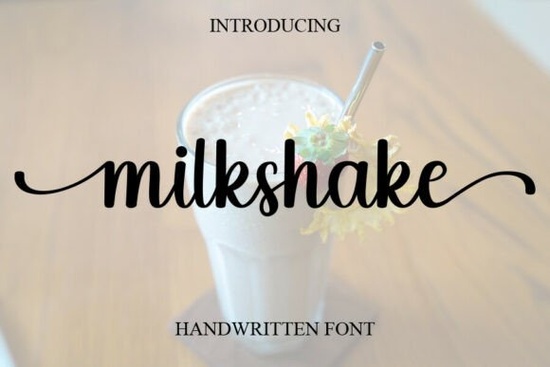
If you're looking for a font that brings a touch of whimsy and charm to your designs, the Milkshake Font is a great choice. This tall, playful handwritten font has a casual, heartfelt feel that makes it perfect for a variety of creative projects.
Why Choose Milkshake Font?
Milkshake Font stands out with its slim, elongated characters that add a unique and personal touch to your designs. Whether you're working on Father’s Day cards, t-shirts, or posters, this font can bring a sense of warmth and personality to your work. Its clean handwritten style with a hint of charm makes it ideal for personal and emotional projects.
Perfect for Greeting Cards and More
One of the standout features of Milkshake Font is its versatility. It's not just a font; it's a way to express emotion and creativity. For example, if you're designing a greeting card, the playful and heartfelt nature of the font can make your message more meaningful. The same goes for t-shirts and posters, where the font can add a personal and engaging touch.
How to Use Milkshake Font in Your Designs
Incorporating Milkshake Font into your designs is straightforward. Here are a few tips to help you get started:
- Choose the Right Background: A simple, clean background can make the slim, elongated characters of Milkshake Font stand out even more. Consider using light, neutral colors or subtle patterns.
- Combine with Other Fonts: To create a balanced design, you might want to pair Milkshake Font with a more traditional or sans-serif font. This can help highlight the unique qualities of Milkshake while maintaining readability.
- Add Decorative Elements: Enhance your design by adding small decorative elements like borders, icons, or illustrations. These can complement the playful and heartfelt feel of the font.
Comparing Milkshake Font with Other Script Fonts
While Milkshake Font is a fantastic choice, it's always good to compare it with other options. Here are a few other script fonts you might consider:
- Homestead Font: This font offers a rustic, hand-drawn feel, making it perfect for vintage and farmhouse-style designs.
- Strawberry Chesscake Font: With its bouncy and cheerful style, this font is ideal for creating fun and lively designs, especially for children's projects.
- Rainy Winter Single Line Font: This elegant and minimalistic font is great for more refined and sophisticated designs, such as wedding invitations or formal documents.
- Better Together Font: As the name suggests, this font is all about harmony and connection. It works well for romantic and heartfelt projects.
Tips for Using Handwritten Fonts Effectively
Handwritten fonts like Milkshake can add a lot of character to your designs, but they also require some care to use effectively. Here are a few tips:
- Test Readability: Make sure the font is readable at different sizes. Test it on various devices and backgrounds to ensure it looks good everywhere.
- Use Sparingly: While handwritten fonts are charming, overusing them can make your design look cluttered. Use them for key elements like headings or quotes, and pair them with more legible fonts for body text.
- Consider Context: Think about the overall tone and purpose of your design. Milkshake Font is perfect for personal and emotional projects, but it might not be suitable for more formal or professional contexts.
Final Thoughts
Milkshake Font is a versatile and charming option for designers, crafters, and print-on-demand sellers. Its playful and heartfelt style can add a special touch to a wide range of creative projects. By following the tips and considering other complementary fonts, you can create designs that truly stand out.